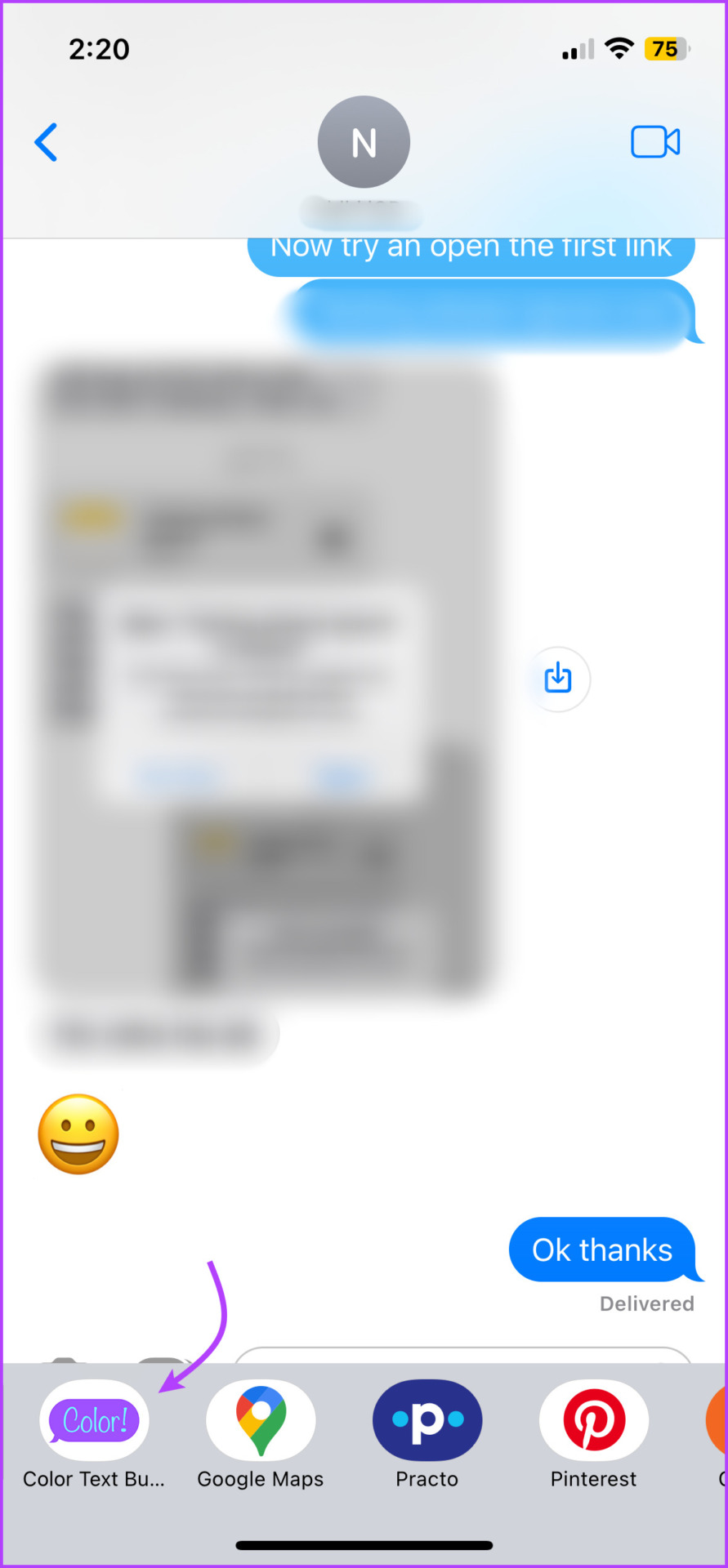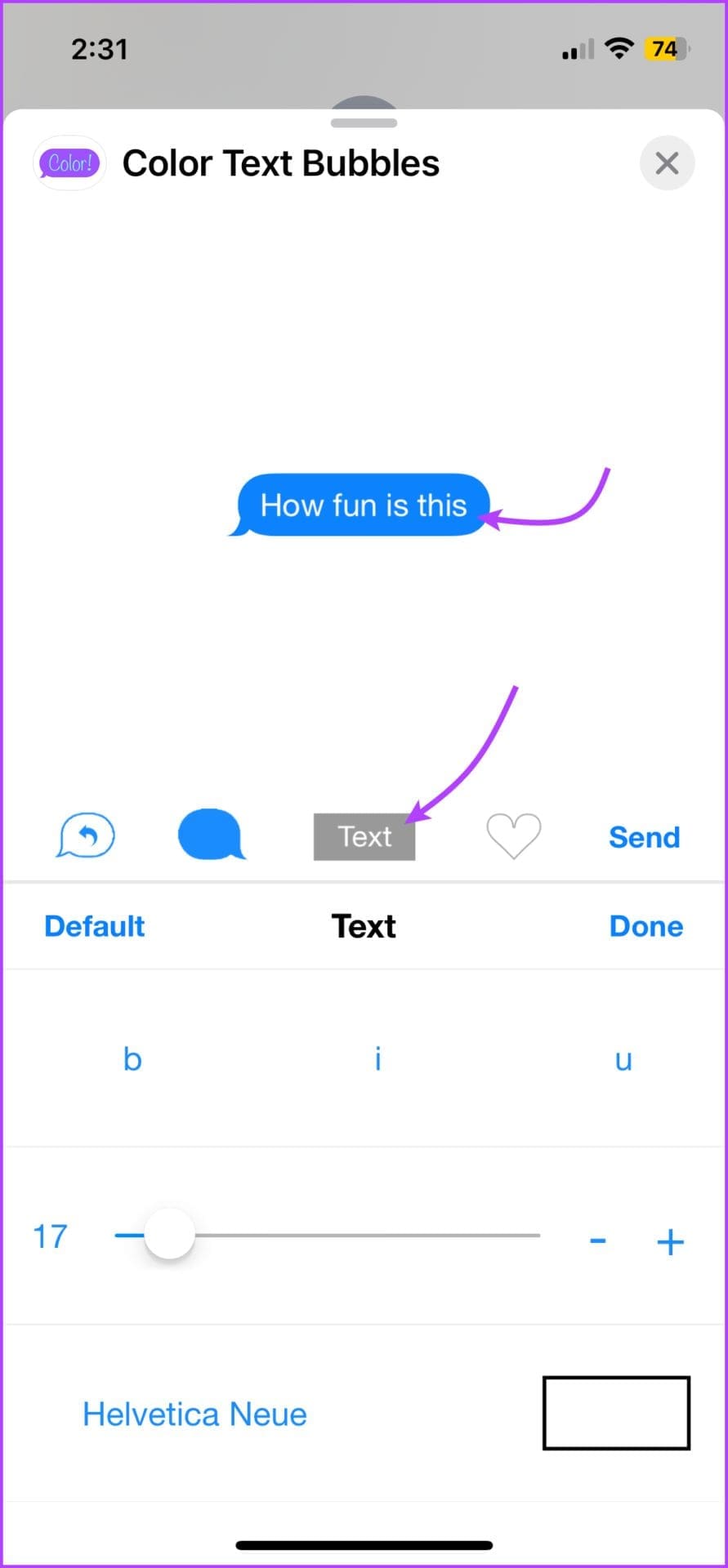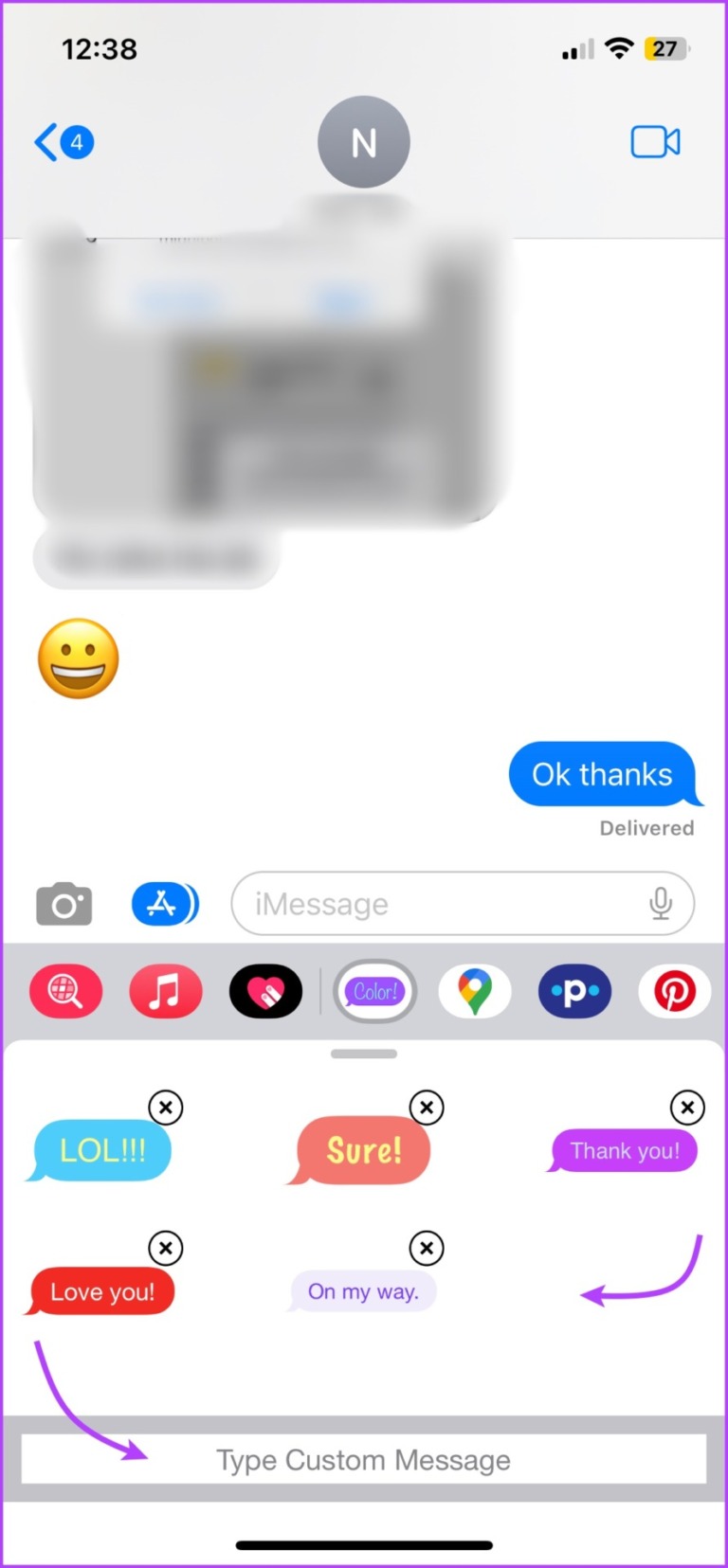
What Is The Font Used In Imessage . Style the text in your messages with bold, italics, and underlining, or add playful, animated effects like. This font was introduced to provide a consistent and legible typographic experience across all. The original iphone message font, the helvetica neue font, was. San francisco is a modern, clean, and highly legible. The font used for text messages on apple devices is called san francisco. Currently, the iphone uses the san francisco font. These typefaces are designed to optimally display text at a variety of sizes and in a wide range of languages across. It was created specifically for apple in 2014 by a team of designers led by apple’s senior vice president of design,. If you’re wondering what font is used in imessage, look no further than the stylish fonts built into the app. Get the typefaces you need to design interfaces for your apps on apple platforms. According to wikipedia, it is the first font created by apple in twenty years. By default, imessage uses the san francisco font, which was specifically designed by apple for their devices and operating systems. Format or animate text within messages.
These typefaces are designed to optimally display text at a variety of sizes and in a wide range of languages across. The original iphone message font, the helvetica neue font, was. Format or animate text within messages. It was created specifically for apple in 2014 by a team of designers led by apple’s senior vice president of design,. This font was introduced to provide a consistent and legible typographic experience across all. According to wikipedia, it is the first font created by apple in twenty years. Get the typefaces you need to design interfaces for your apps on apple platforms. Style the text in your messages with bold, italics, and underlining, or add playful, animated effects like. San francisco is a modern, clean, and highly legible. If you’re wondering what font is used in imessage, look no further than the stylish fonts built into the app.
What Is The Font Used In Imessage This font was introduced to provide a consistent and legible typographic experience across all. The font used for text messages on apple devices is called san francisco. It was created specifically for apple in 2014 by a team of designers led by apple’s senior vice president of design,. Currently, the iphone uses the san francisco font. If you’re wondering what font is used in imessage, look no further than the stylish fonts built into the app. The original iphone message font, the helvetica neue font, was. Format or animate text within messages. By default, imessage uses the san francisco font, which was specifically designed by apple for their devices and operating systems. These typefaces are designed to optimally display text at a variety of sizes and in a wide range of languages across. According to wikipedia, it is the first font created by apple in twenty years. Style the text in your messages with bold, italics, and underlining, or add playful, animated effects like. Get the typefaces you need to design interfaces for your apps on apple platforms. This font was introduced to provide a consistent and legible typographic experience across all. San francisco is a modern, clean, and highly legible.
Bold text in iMessage YouTube What Is The Font Used In Imessage It was created specifically for apple in 2014 by a team of designers led by apple’s senior vice president of design,. The original iphone message font, the helvetica neue font, was. Format or animate text within messages. These typefaces are designed to optimally display text at a variety of sizes and in a wide range of languages across. San francisco. What Is The Font Used In Imessage.
How to customize the font in WhatsApp and iMessage? ITIGIC What Is The Font Used In Imessage Currently, the iphone uses the san francisco font. By default, imessage uses the san francisco font, which was specifically designed by apple for their devices and operating systems. Format or animate text within messages. The original iphone message font, the helvetica neue font, was. According to wikipedia, it is the first font created by apple in twenty years. This font. What Is The Font Used In Imessage.
2 Ways to Change SMS and iMessage Color and Font on iPhone or iPad What Is The Font Used In Imessage Format or animate text within messages. The original iphone message font, the helvetica neue font, was. By default, imessage uses the san francisco font, which was specifically designed by apple for their devices and operating systems. Currently, the iphone uses the san francisco font. It was created specifically for apple in 2014 by a team of designers led by apple’s. What Is The Font Used In Imessage.
Imessage Font Enhance Your Messages What Is The Font Used In Imessage Currently, the iphone uses the san francisco font. Format or animate text within messages. San francisco is a modern, clean, and highly legible. The original iphone message font, the helvetica neue font, was. These typefaces are designed to optimally display text at a variety of sizes and in a wide range of languages across. It was created specifically for apple. What Is The Font Used In Imessage.
2 Ways to Change SMS and iMessage Color and Font on iPhone or iPad What Is The Font Used In Imessage Style the text in your messages with bold, italics, and underlining, or add playful, animated effects like. Get the typefaces you need to design interfaces for your apps on apple platforms. Currently, the iphone uses the san francisco font. By default, imessage uses the san francisco font, which was specifically designed by apple for their devices and operating systems. Format. What Is The Font Used In Imessage.
What Font Is Imessage A Beginner's Guide What Is The Font Used In Imessage The original iphone message font, the helvetica neue font, was. Get the typefaces you need to design interfaces for your apps on apple platforms. It was created specifically for apple in 2014 by a team of designers led by apple’s senior vice president of design,. Currently, the iphone uses the san francisco font. These typefaces are designed to optimally display. What Is The Font Used In Imessage.
How to Use iMessage (with Pictures) wikiHow What Is The Font Used In Imessage Format or animate text within messages. The original iphone message font, the helvetica neue font, was. Currently, the iphone uses the san francisco font. By default, imessage uses the san francisco font, which was specifically designed by apple for their devices and operating systems. The font used for text messages on apple devices is called san francisco. According to wikipedia,. What Is The Font Used In Imessage.
How to Change SMS and iMessage Color and Font on iPhone or iPad What Is The Font Used In Imessage Get the typefaces you need to design interfaces for your apps on apple platforms. By default, imessage uses the san francisco font, which was specifically designed by apple for their devices and operating systems. This font was introduced to provide a consistent and legible typographic experience across all. Currently, the iphone uses the san francisco font. These typefaces are designed. What Is The Font Used In Imessage.